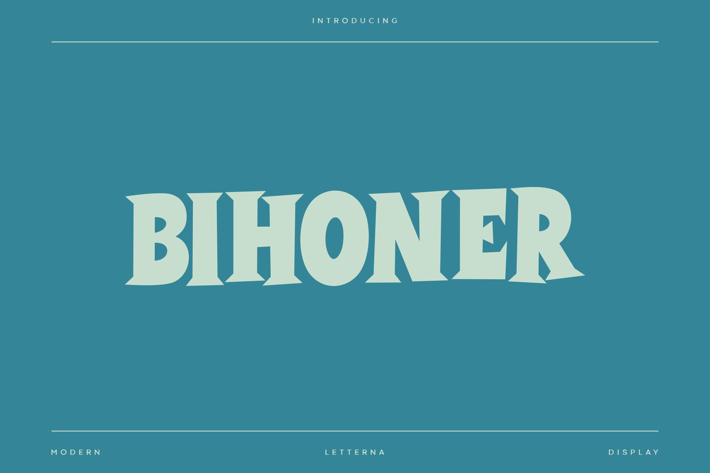
Bihoner - Modern Artdeco Font
Letterna
Bihoner is a unique font and also has a vintage look font, it comes with strong all-caps making it look different. This font is inspired by the old style then brings it back with a modern and fresh touch, it is dynamic and elegant. Use it for awesome designs, branding, titles, comics, posters, brochures, food, album covers, logos and more.